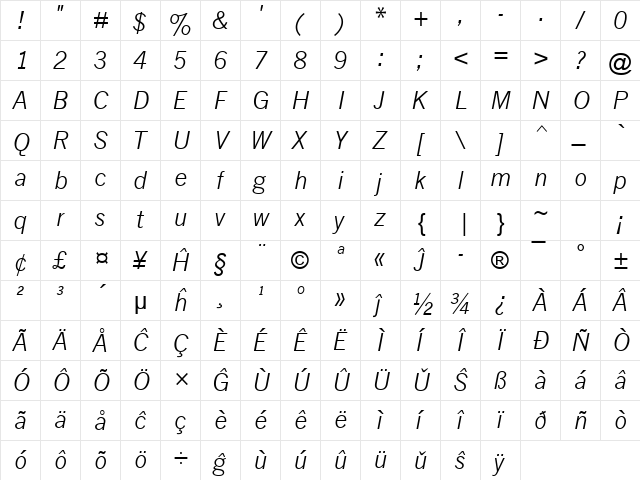
News Gothic MT Eo Italic
Design Context for News Gothic MT Eo Typeface
News Gothic MT Eo has the quiet confidence of well-executed sans-serif typography: versatile, unobtrusive, and dependable at any size. Its italic angle brings a sense of urgency and motion to the letterforms.
Font Pairing: Works well alongside a characterful serif or display font that can carry the expressive load while News Gothic MT Eo handles the functional copy.
Pro Tip: Use News Gothic MT Eo for UI labels, navigation, and short-form body copy where clean legibility is the priority.